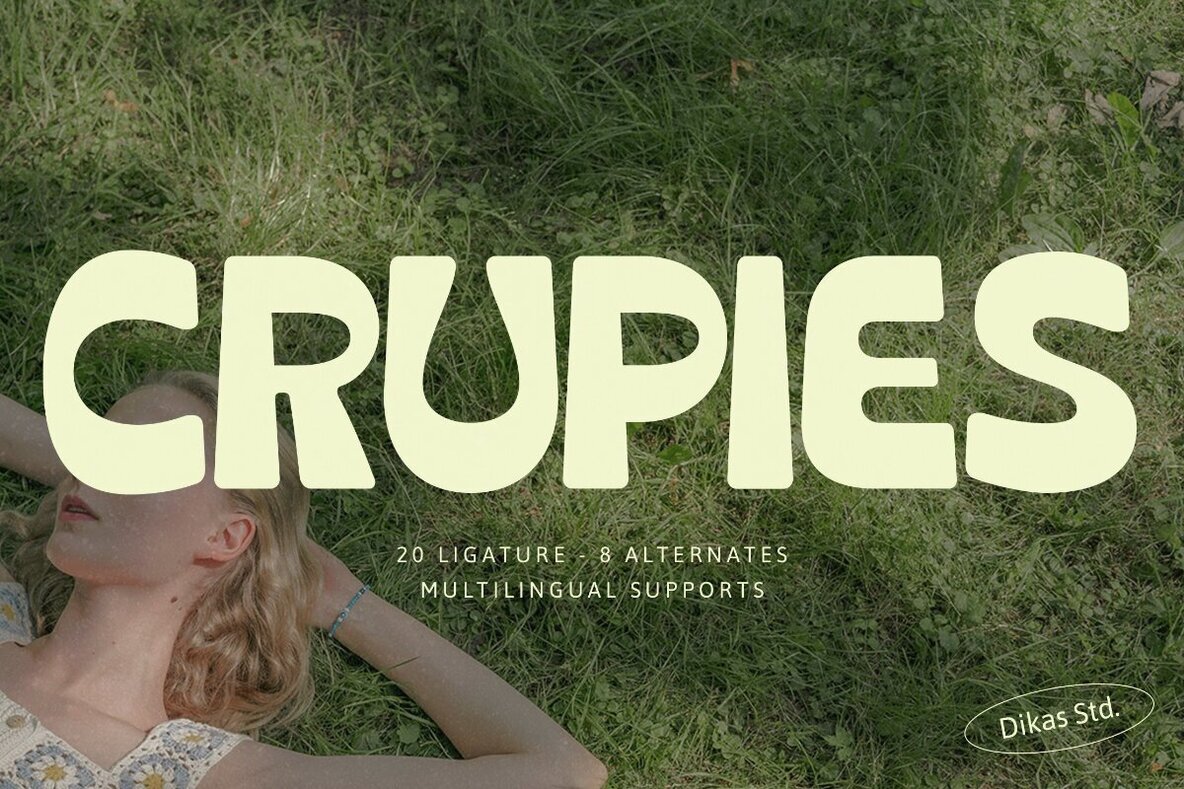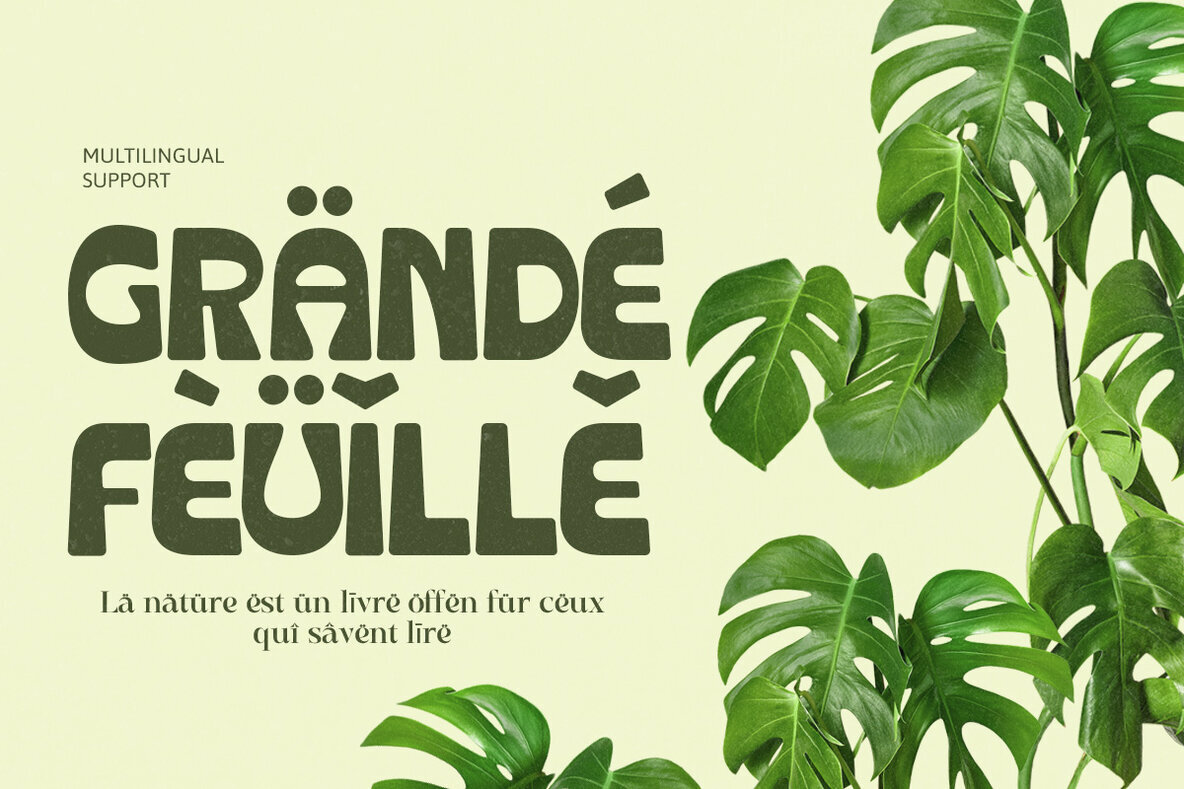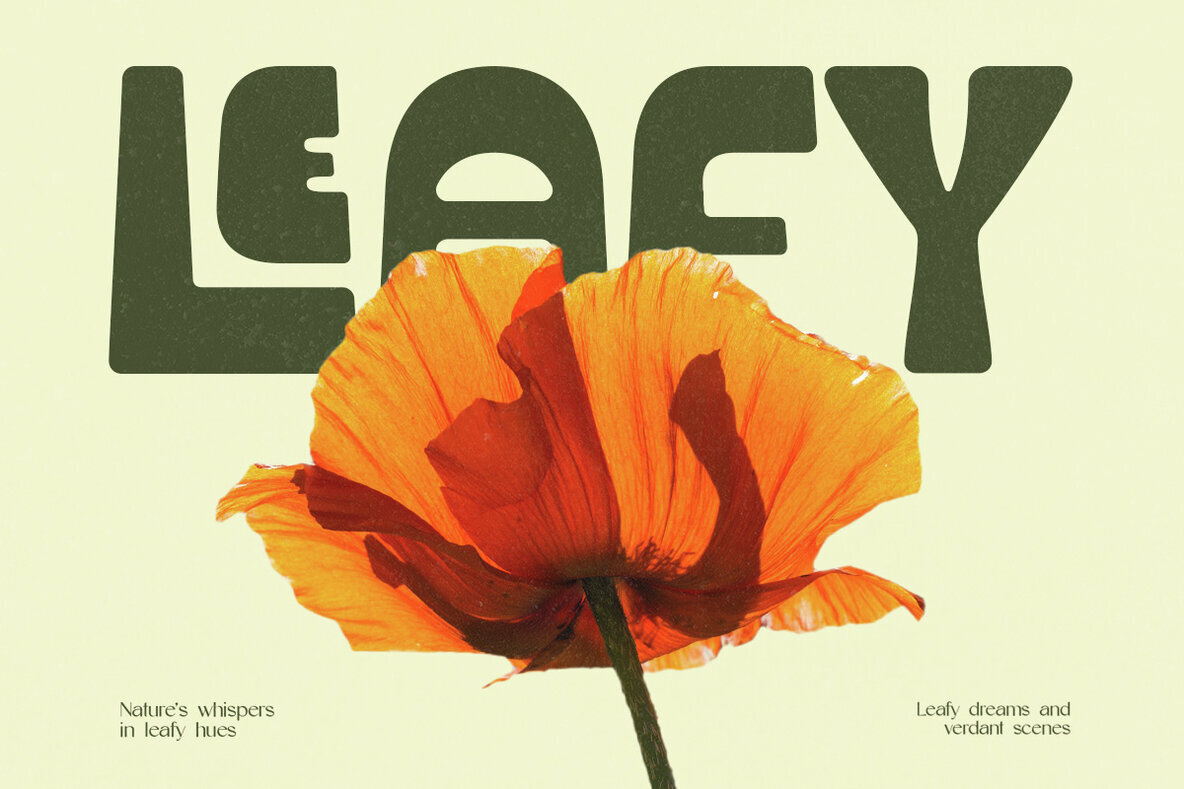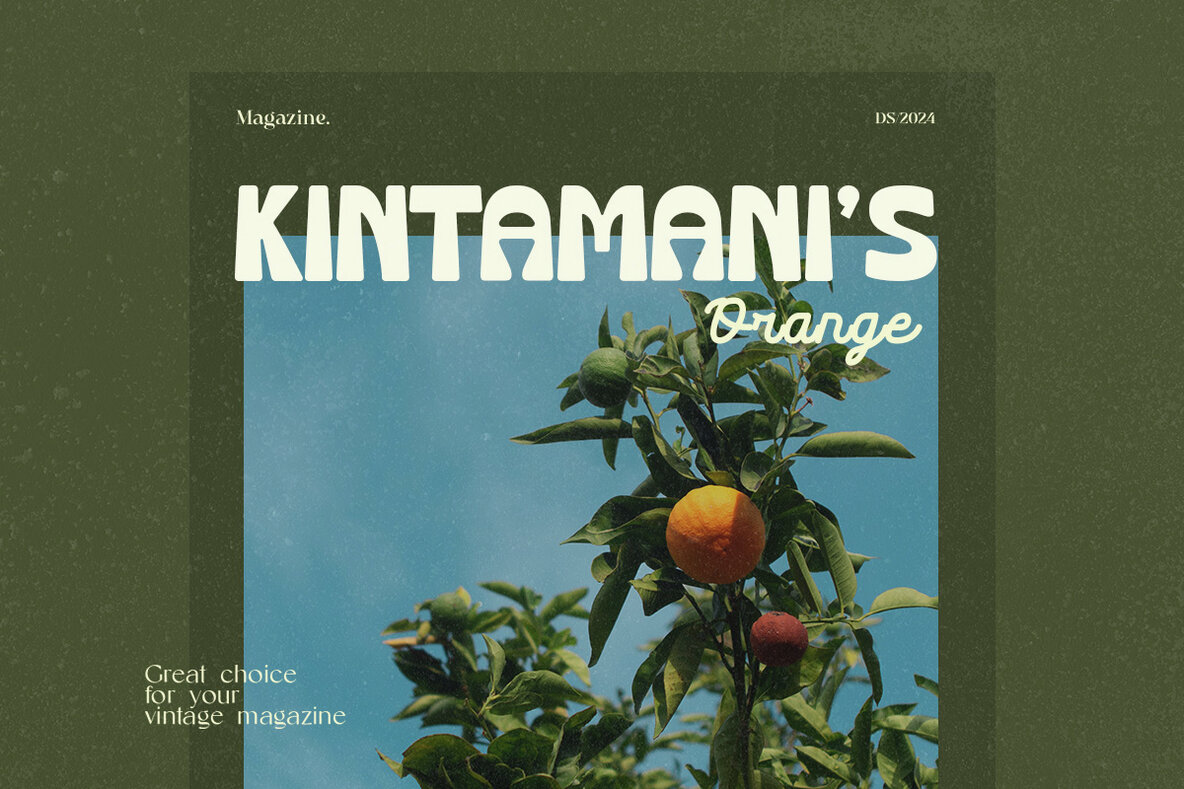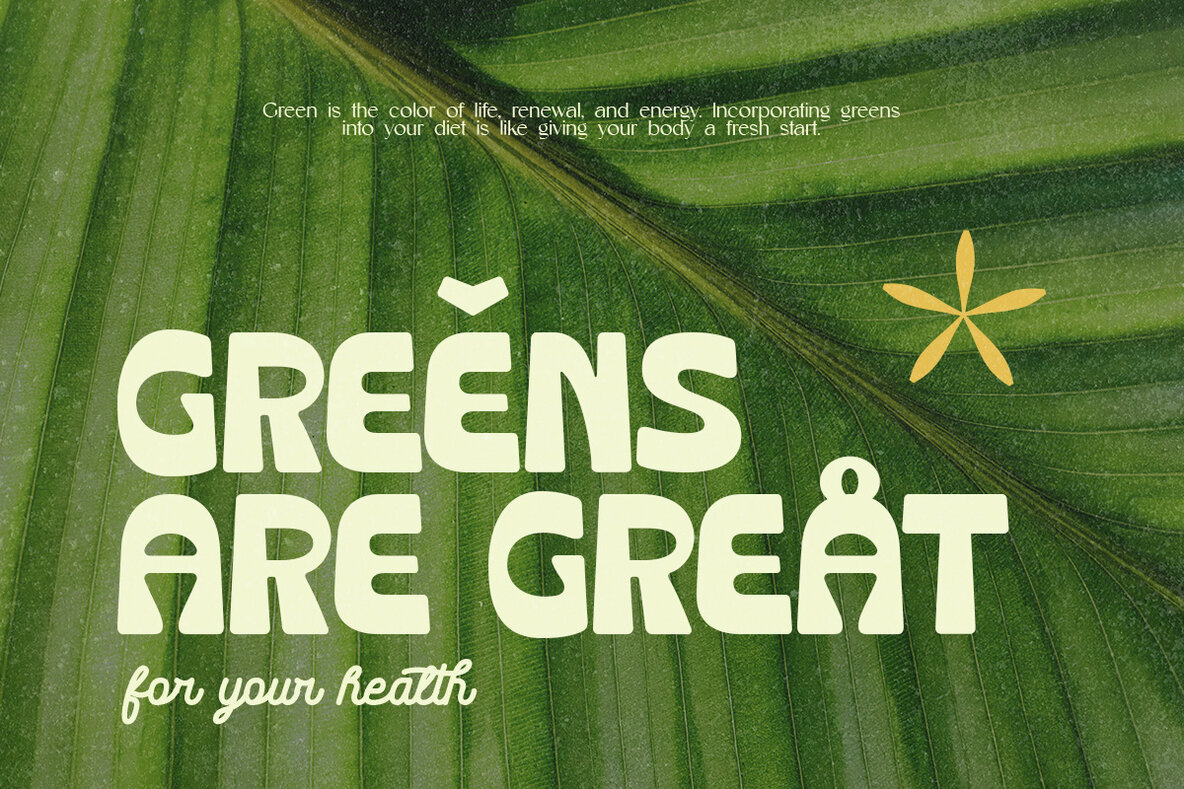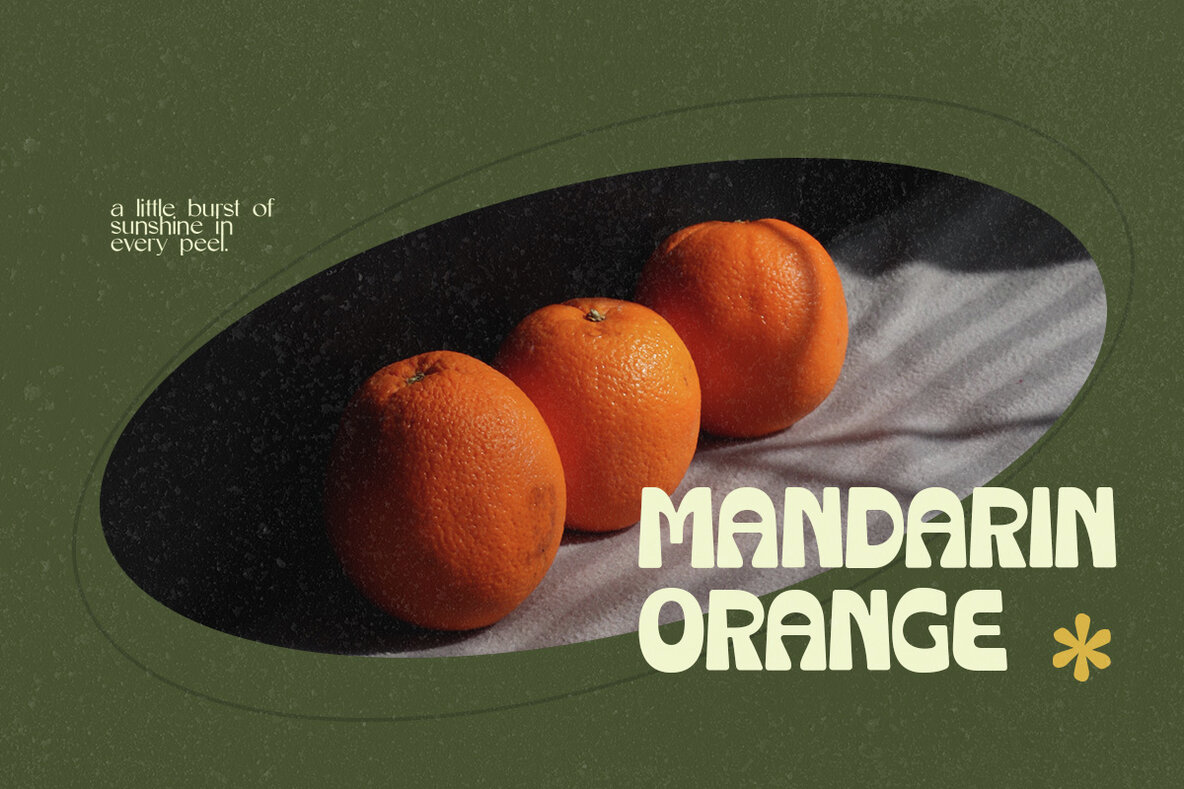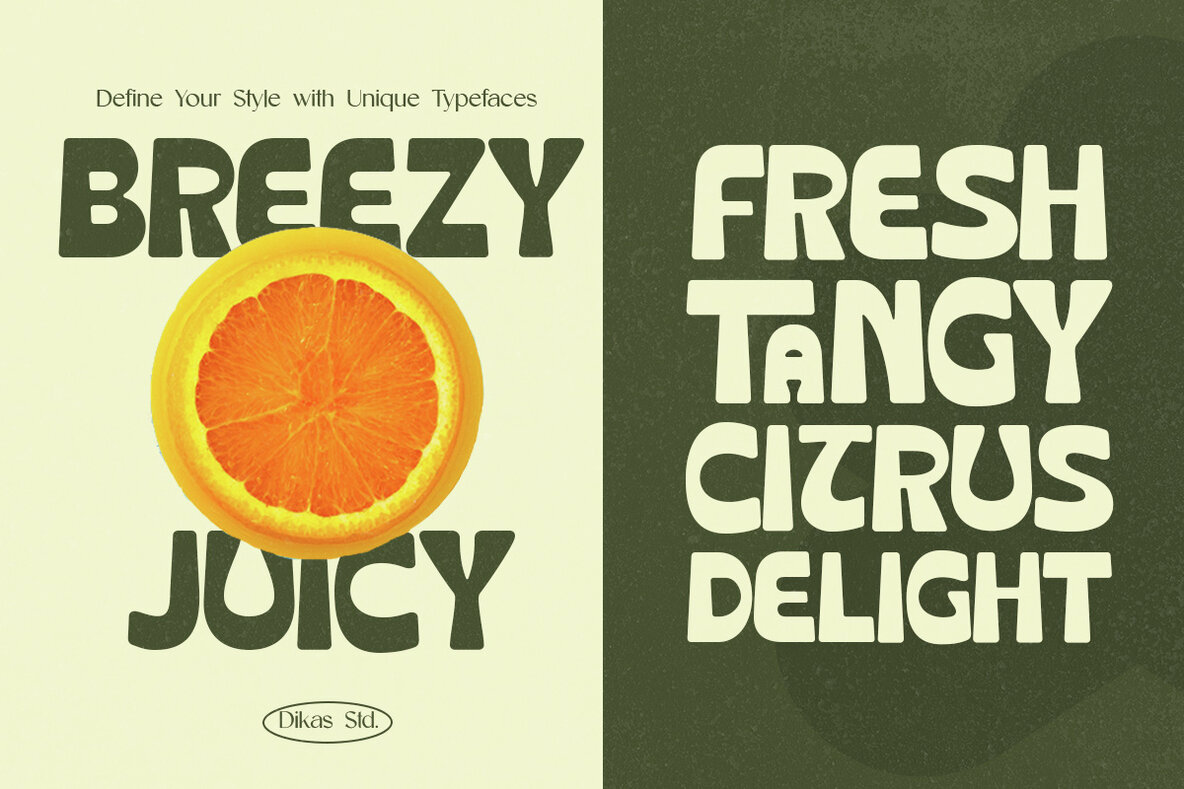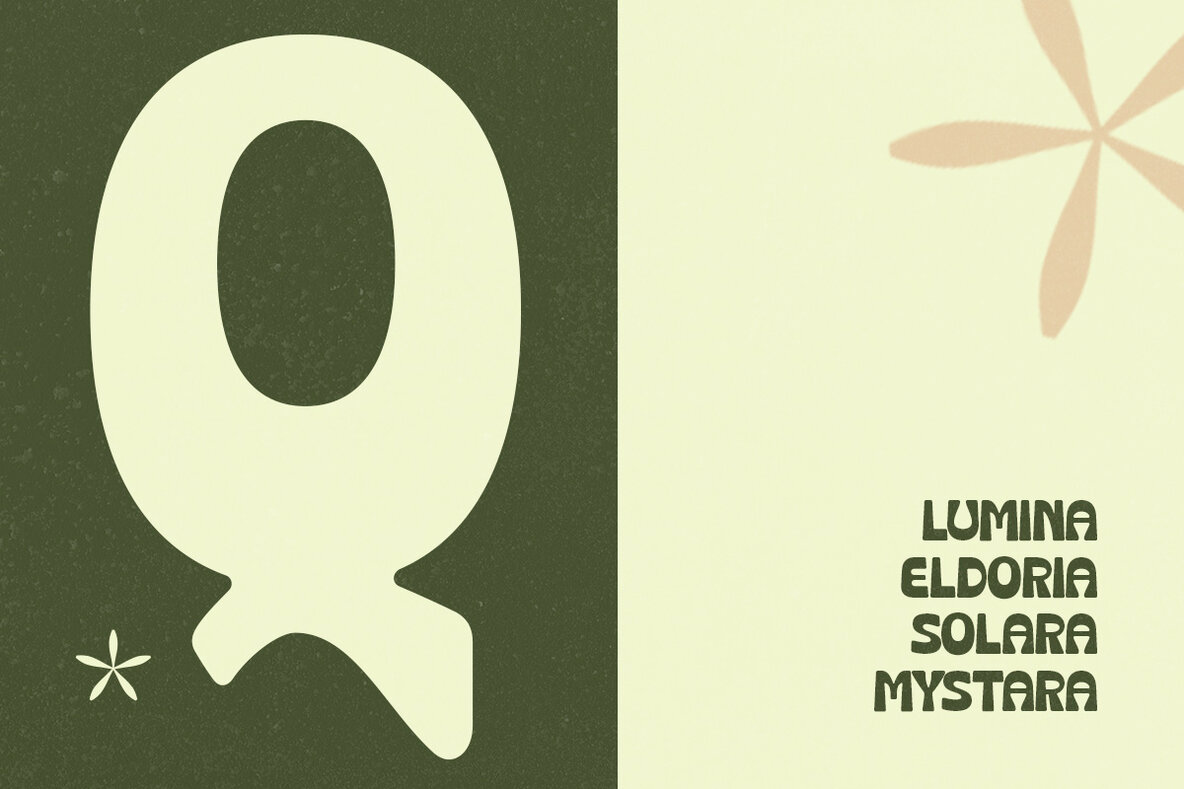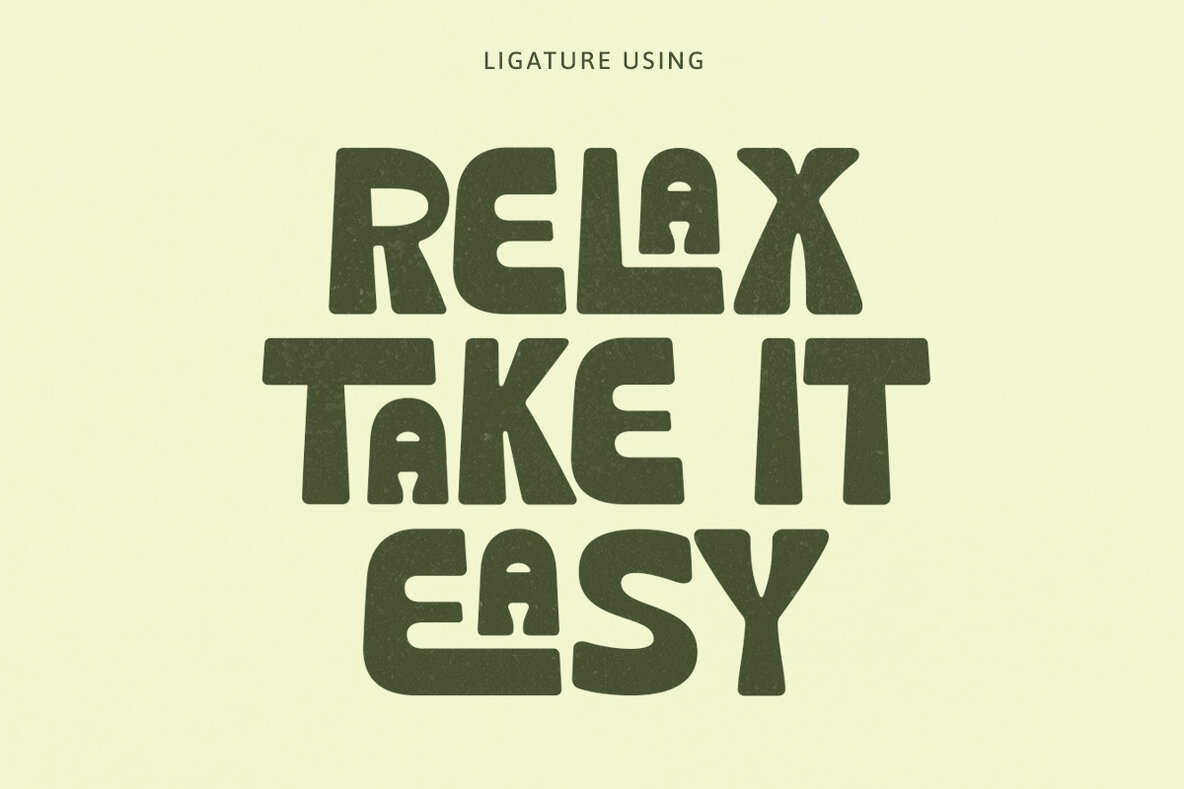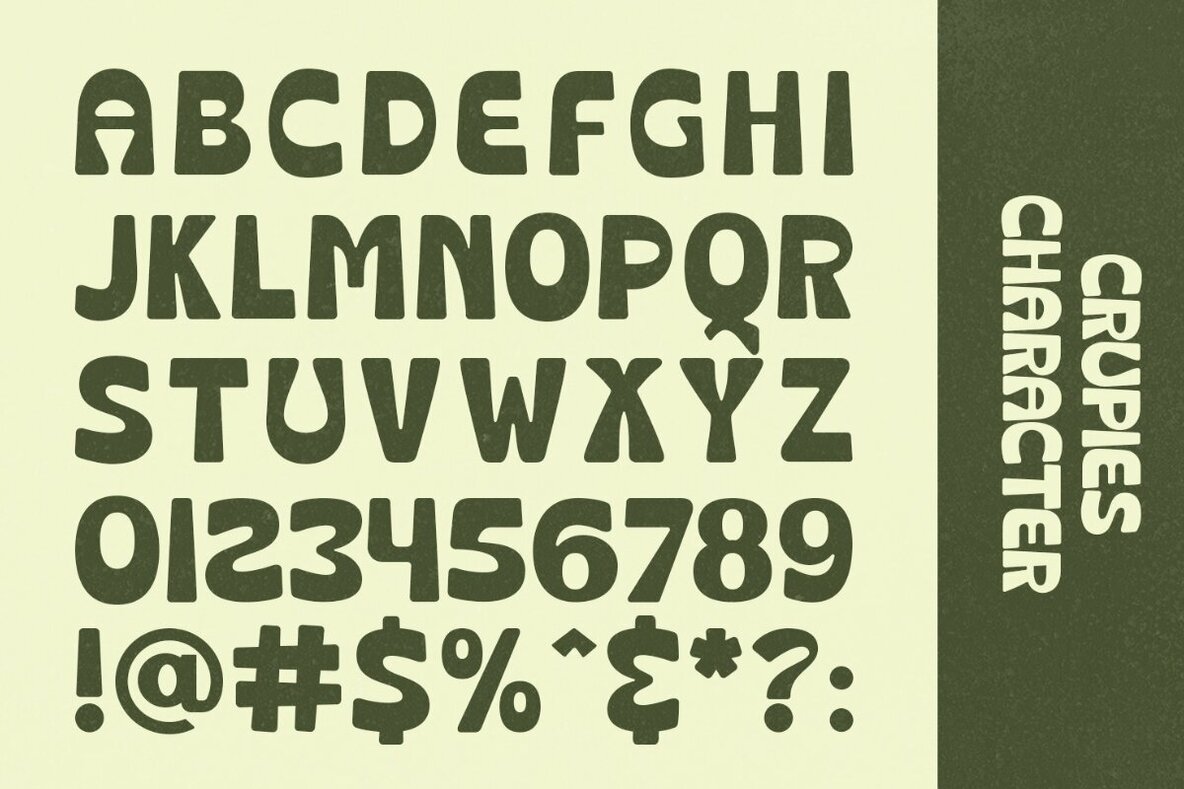
Crupies Font
Crupies Regular
Crupies presents a unique take on retro-inspired typography, characterized by its rounded shapes and intriguing reverse contrast. Designed for creativity, this font allows for playful expression, making it ideal for projects with a vintage or pop flair.Crupies: A Distinctive Retro Bold Font